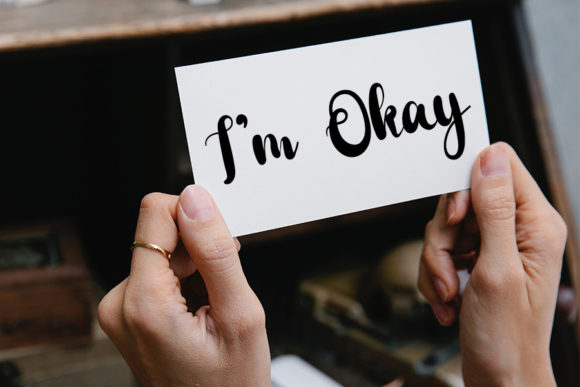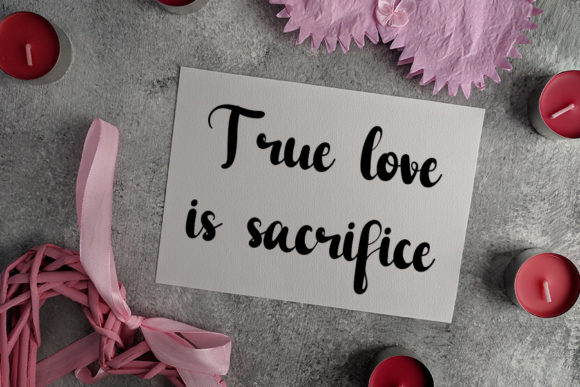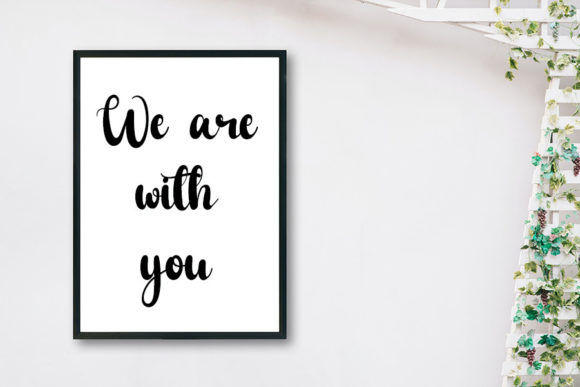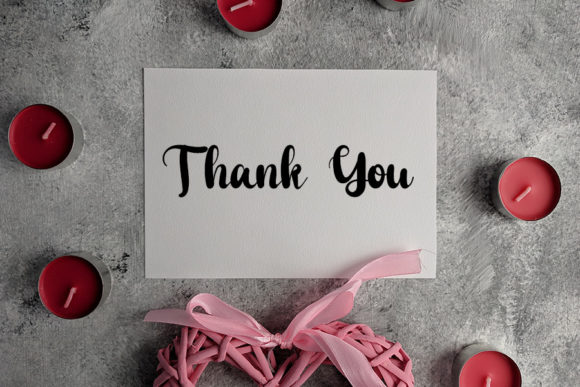
Introducing Absolutely Font: Elevate Your Designs with Elegance
In the world of design, fonts play a crucial role in conveying messages, expressing emotions, and creating a lasting impression. If you’re a designer, craftsperson, or simply someone who appreciates beautiful typography, you’re in luck. Absolutely Font is a stunning handwritten font that can instantly elevate your work with its elegant and curvy lines. In this article, we’ll explore the features, benefits, and uses of Absolutely Font, and why it’s a must-have for your design arsenal.
The Charm of Absolutely Font
Absolutely Font is a lovely handwritten font that exudes sophistication and charm. Its elegant and curvy lines make it perfect for designs that require a touch of refinement and luxury. The font’s unique character is sure to capture the attention of your audience and leave a lasting impression. Whether you’re working on a product packaging project, branding campaign, magazine cover, or social media graphics, Absolutely Font is the perfect choice.
One of the standout features of Absolutely Font is its versatility. It’s a font that can be used in a wide range of design projects, from wedding invitations and stationery to product packaging and branding materials. The font’s flexibility makes it an excellent addition to any designer’s toolkit. Whether you’re creating a cohesive brand identity or simply looking for a beautiful font to enhance your design, Absolutely Font is an excellent choice.
Absolutely Font is a dream come true for designers and crafters who appreciate the beauty of handwritten typography. The font’s elegant lines and curves make it perfect for a variety of design projects, including:
- Product packaging: Add a touch of luxury to your product packaging with Absolutely Font.
- Branding projects: Create a cohesive brand identity with this beautiful handwritten font.
- Magazine covers: Make your magazine cover stand out with Absolutely Font’s elegant and curvy lines.
- Social media graphics: Elevate your social media graphics with this stunning font.
- Wedding invitations: Add a touch of romance and elegance to your wedding invitations with Absolutely Font.
Why Choose Absolutely Font?
So, why choose Absolutely Font over other fonts? Here are just a few reasons:
- Unique character: Absolutely Font has a unique character that sets it apart from other fonts.
- Elegant lines: The font’s elegant lines and curves make it perfect for designs that require a touch of sophistication.
- Versatility: Absolutely Font can be used in a wide range of design projects.
- Easy to read: The font is easy to read, making it perfect for body text and headlines.
Tips for Using Absolutely Font
Here are a few tips for using Absolutely Font in your designs:
- Pair with a sans-serif font: Pair Absolutely Font with a sans-serif font for a beautiful contrast.
- Use for headlines and body text: Use Absolutely Font for headlines and body text for a cohesive look.
In conclusion, Absolutely Font is a beautiful handwritten font that can elevate your designs with its elegant and curvy lines. Its versatility, unique character, and ease of use make it a must-have for designers and crafters. Whether you’re working on a product packaging project, branding campaign, or social media graphics, Absolutely Font is the perfect choice. So, why wait? Get your hands on Absolutely Font today and take your designs to the next level.